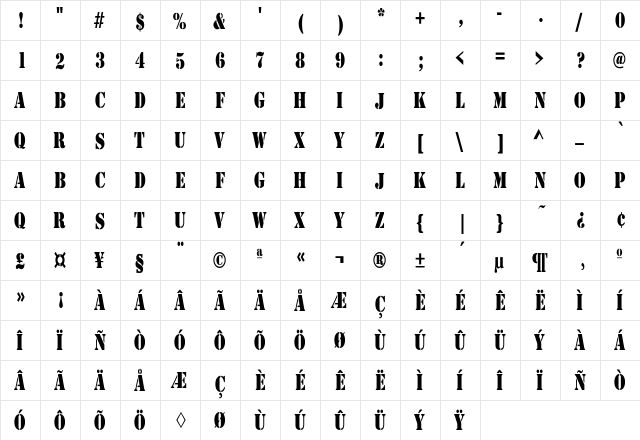
Larchmere Condensed Regular
Design Context for Larchmere Condensed Typeface
Larchmere Condensed is a composed and adaptable typeface that performs quietly and consistently across a wide range of design contexts. The condensed width makes it efficient for tight spaces without sacrificing legibility.